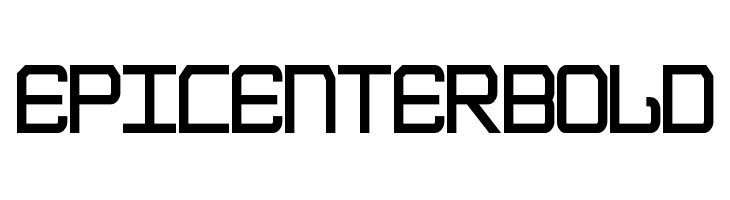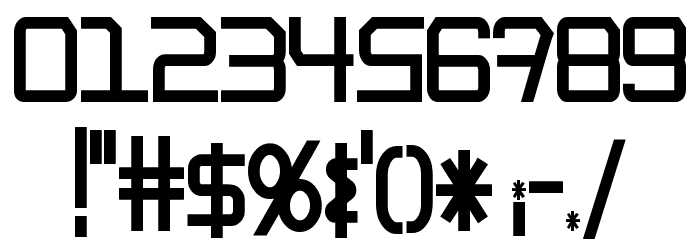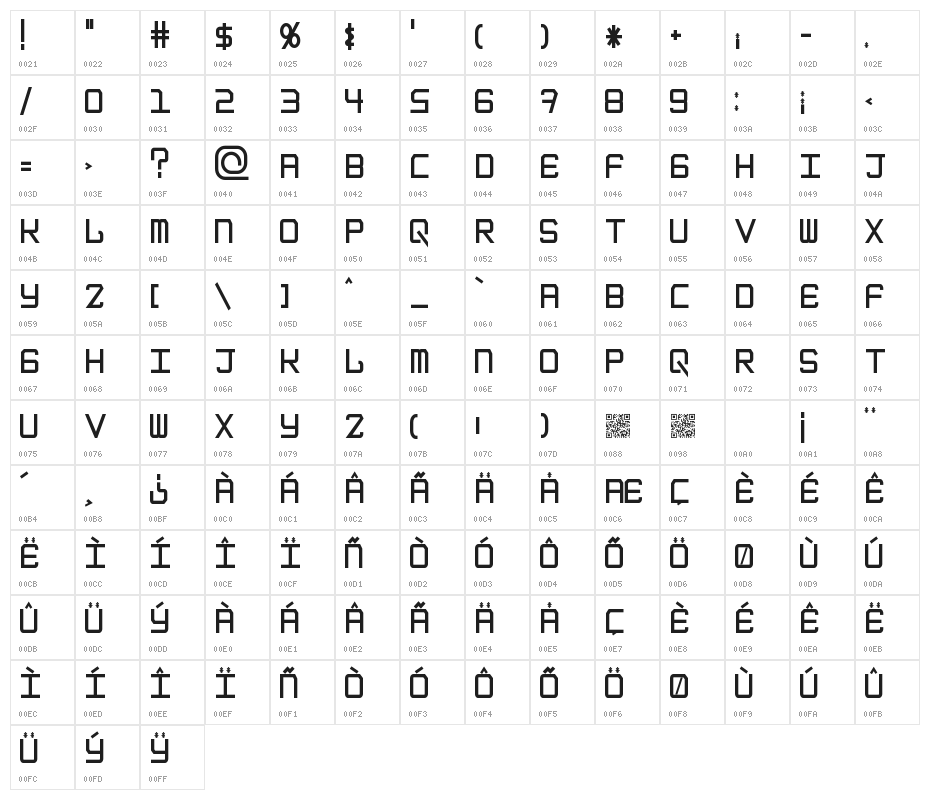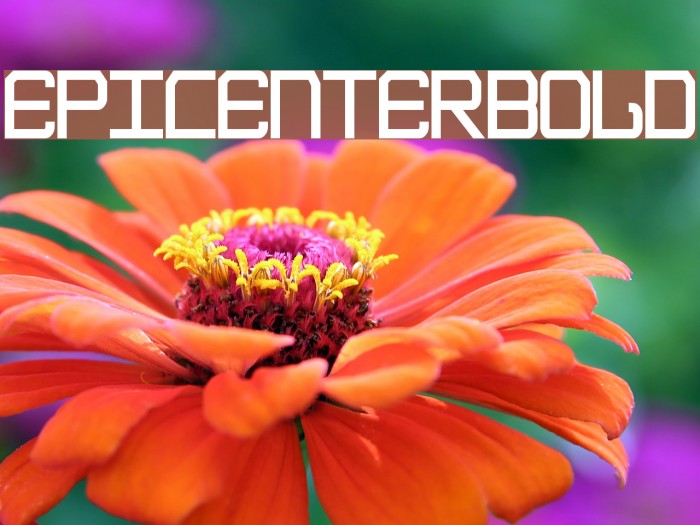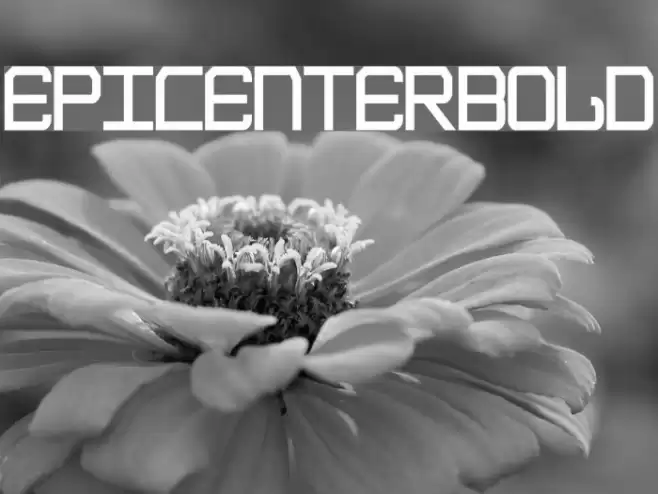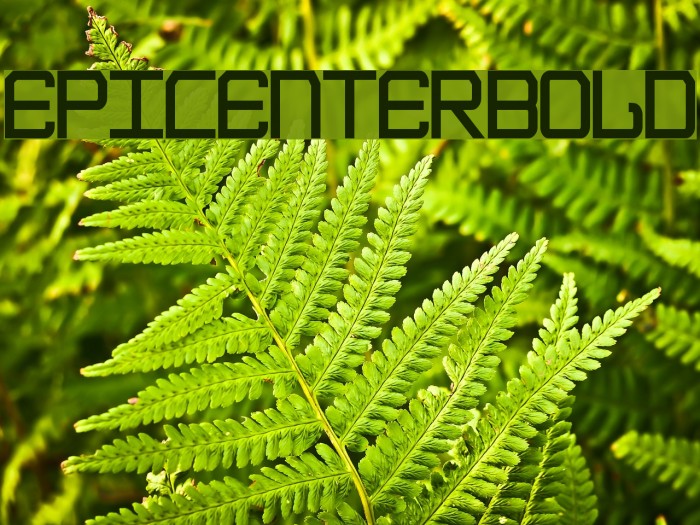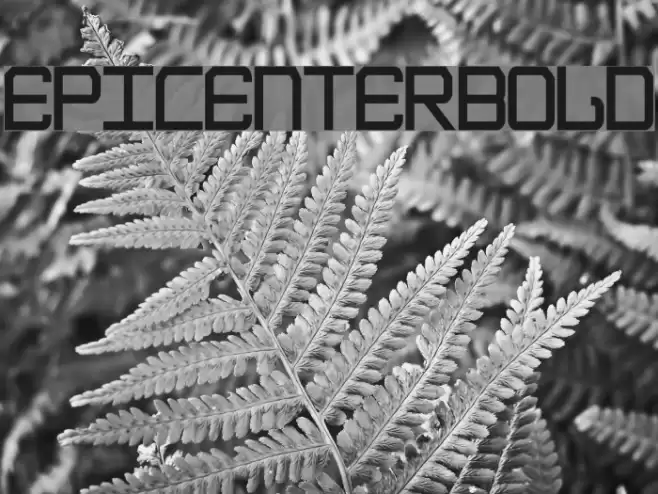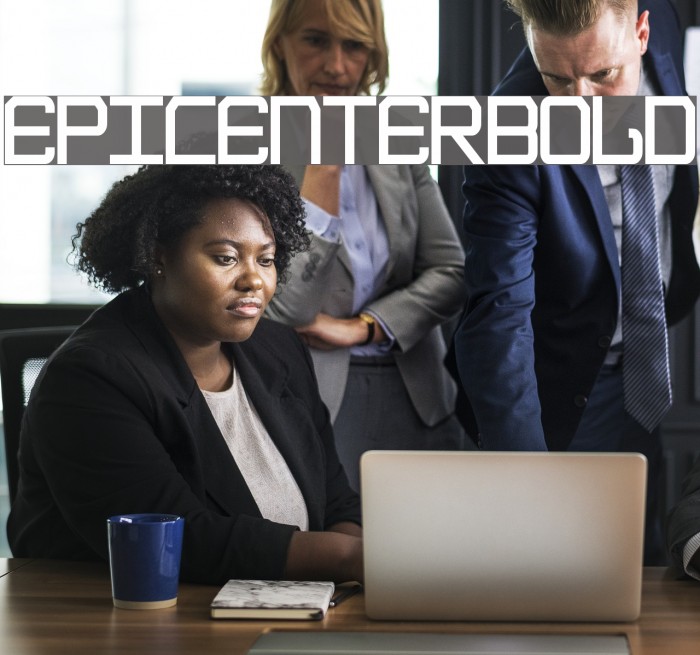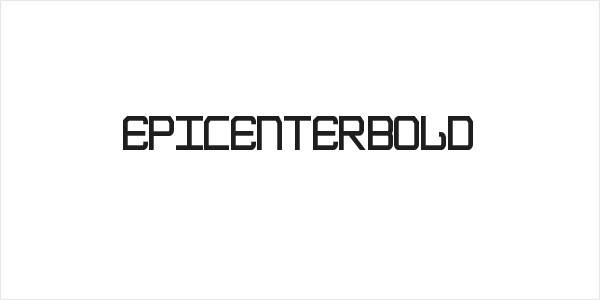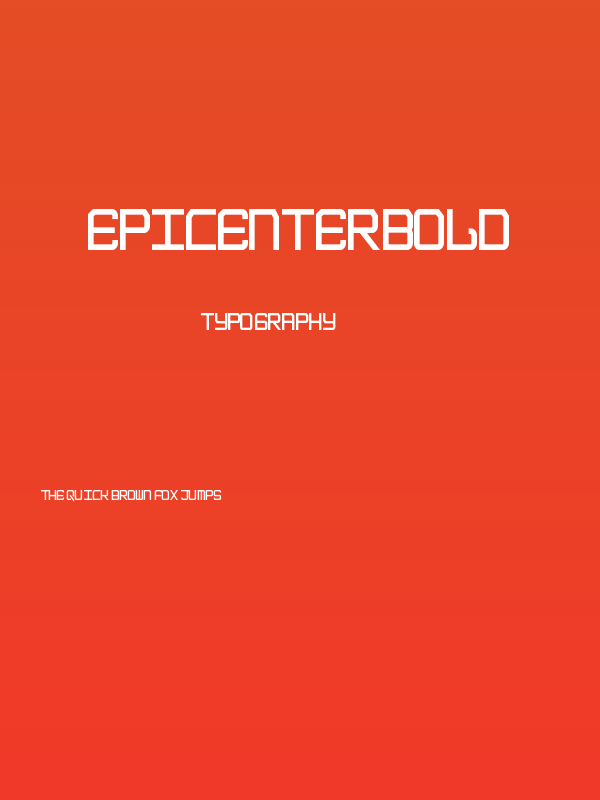
EpicenterBold Font
EpicenterBold Description
This font features a bold, geometric design with a futuristic and technical aesthetic. The characters are constructed with straight lines and sharp angles, giving it a mechanical and industrial feel. The uppercase letters are uniform in height, while the lowercase letters maintain a consistent style, enhancing readability. The numerals and special characters follow the same design principles, ensuring a cohesive look across all glyphs. The font's structure is clean and precise, making it suitable for projects that require a modern and edgy appearance.
Proposed ProjectsIdeal for technology branding, video game titles, sci-fi movie posters, and modern digital interfaces.